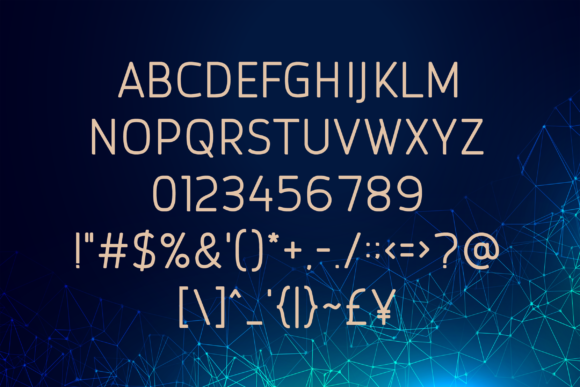
The Ultimate Guide to Browncode Font: Elevate Your Designs with Style and Readability
I’ll never forget the time I was working on a project for a client who wanted a modern, elegant look. I spent hours scouring the internet for the perfect font, but nothing seemed quite right. That was until I stumbled upon Browncode Font. ✨ It was love at first sight! The perfectly balanced letters, the sleek sans-serif design, and the absolute readability – it was exactly what I needed. In this article, I’ll share my experience with Browncode Font, its features, and how to make the most of it in your designs.
An Honest Review of Browncode Font
- ✨ **Elegant and stylish**: Browncode Font is a beautifully designed sans-serif font that adds a touch of sophistication to any design.
- ✅ **Perfectly balanced letters**: The font’s balanced letters ensure that your text is easy to read, making it perfect for body text or headings.
- 💡 **Highly versatile**: Browncode Font can be used for a wide range of design projects, from branding and advertising to packaging and digital media.
- 👍 **Easy to read**: The font’s clean design and balanced letters make it easy to read, even at small sizes.
While Browncode Font is an excellent choice for many design projects, there are a few things to keep in mind. 🤔
- ⚠️ **Limited language support**: Browncode Font may not support all languages, so be sure to check the font’s specifications before using it for a project.
- ⚠️ **Glyph limitations**: While Browncode Font has a wide range of glyphs, it may not have every special character or symbol you need.
The Backstory of Browncode Font
Browncode Font was designed by a team of typographers who wanted to create a font that was both elegant and highly readable. The font’s design is inspired by classic sans-serif fonts, but with a modern twist. The team spent countless hours perfecting the font’s design, ensuring that every letter was balanced and visually appealing.
Q: What is Browncode Font?
A: Browncode Font is a stylish and elegant sans-serif font designed for use in a wide range of design projects.